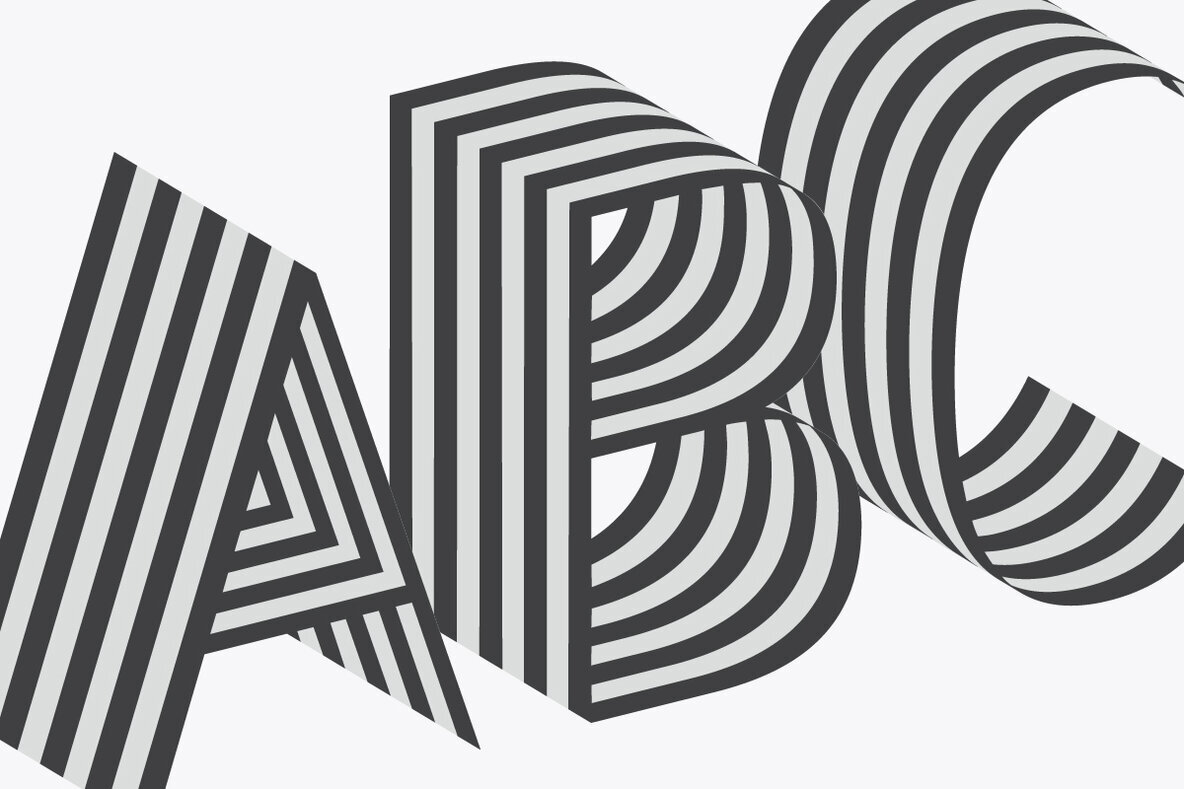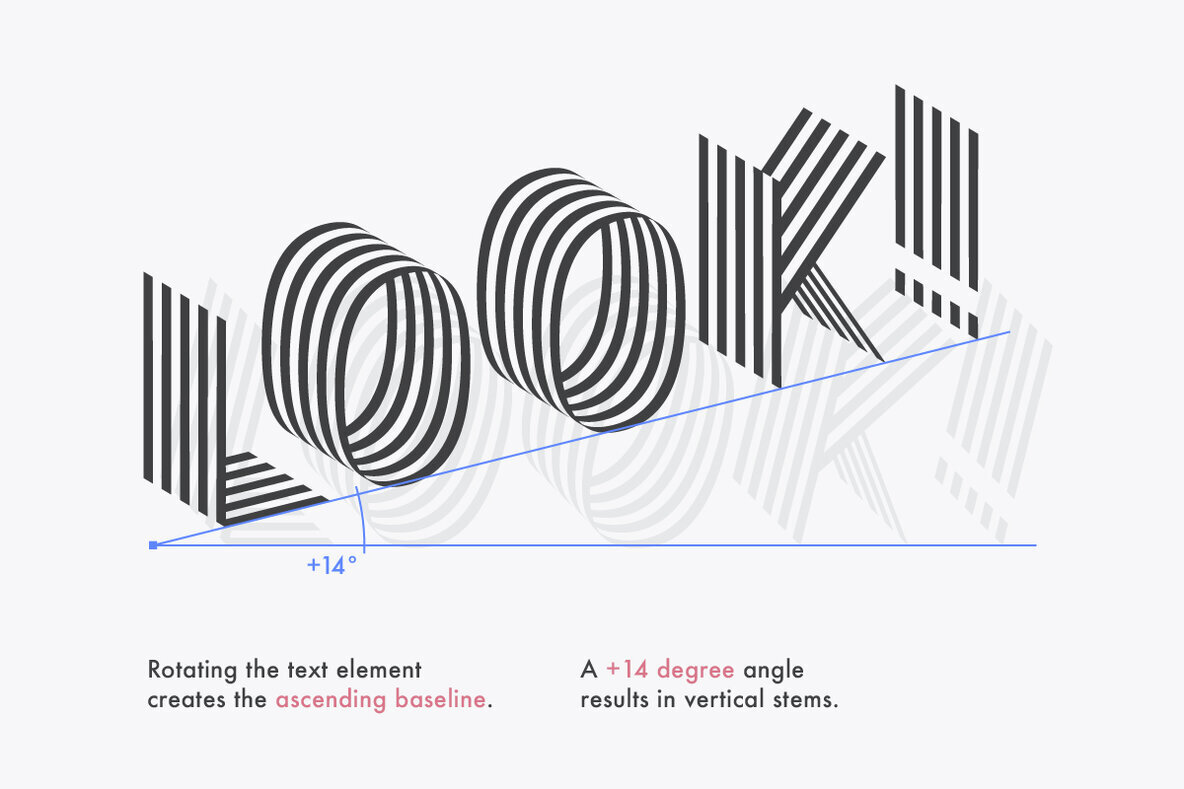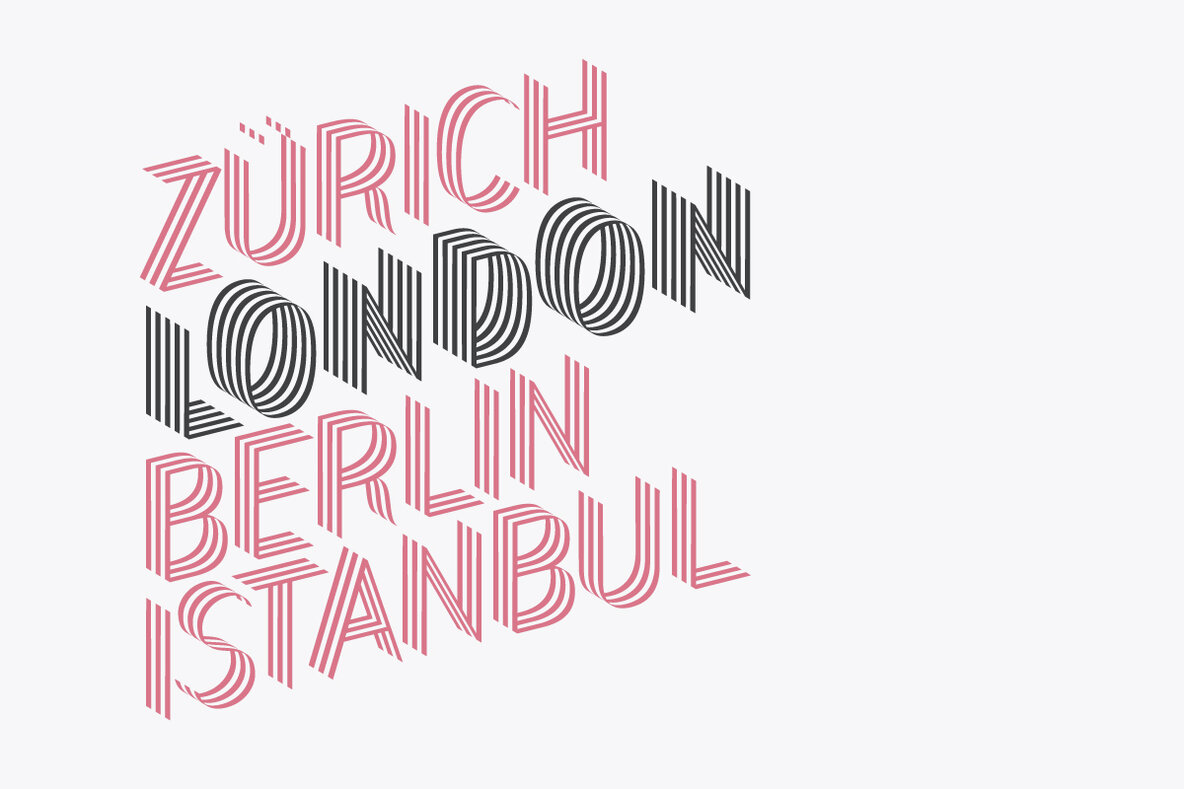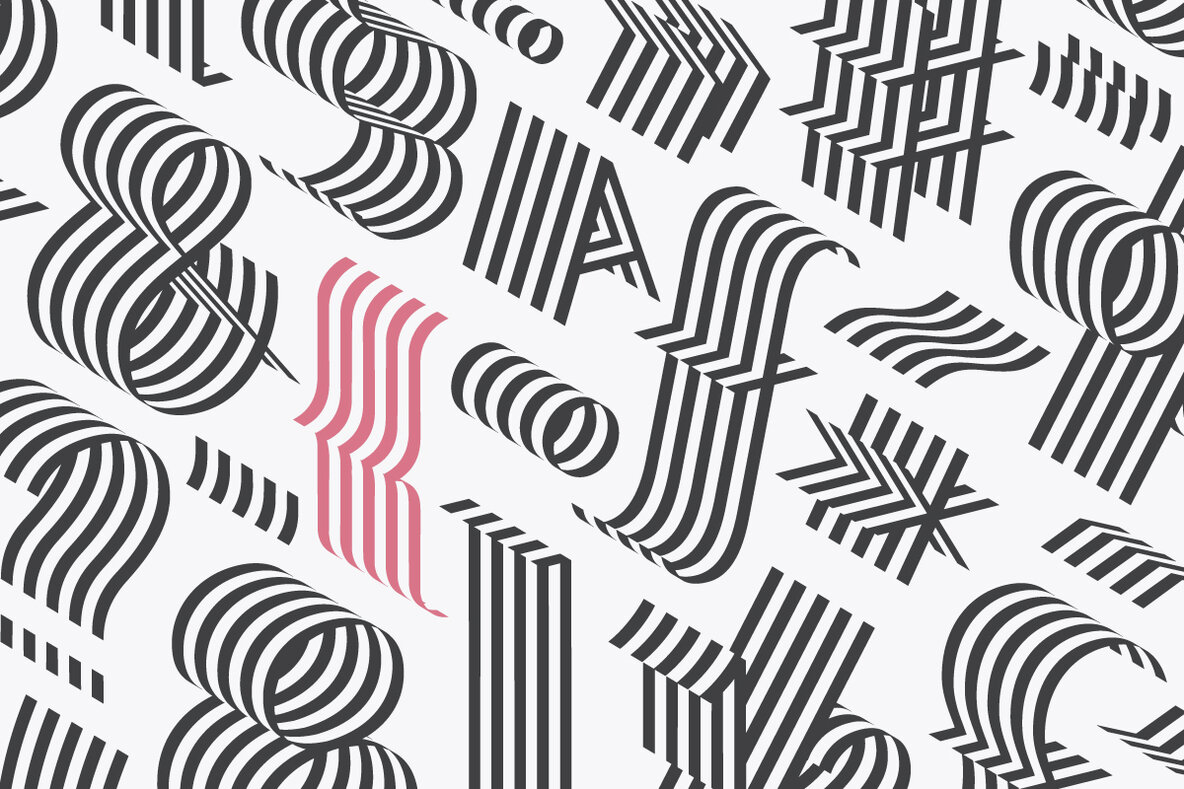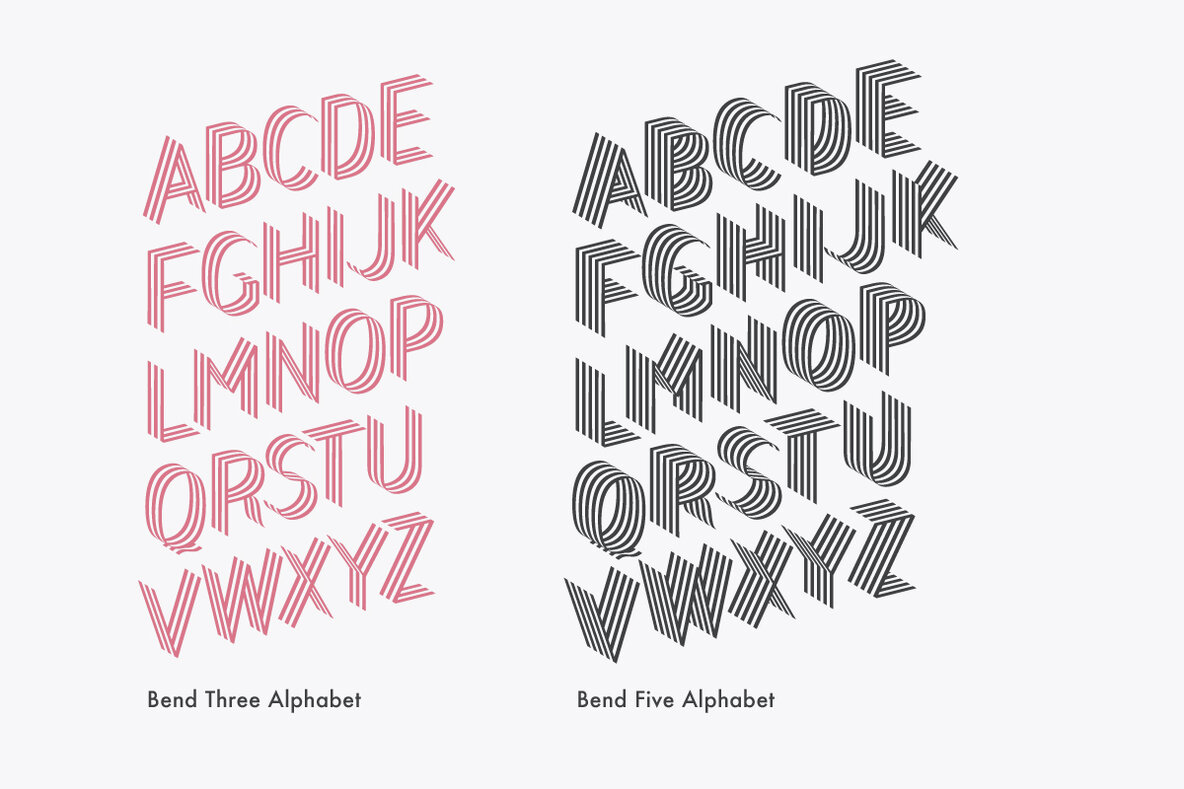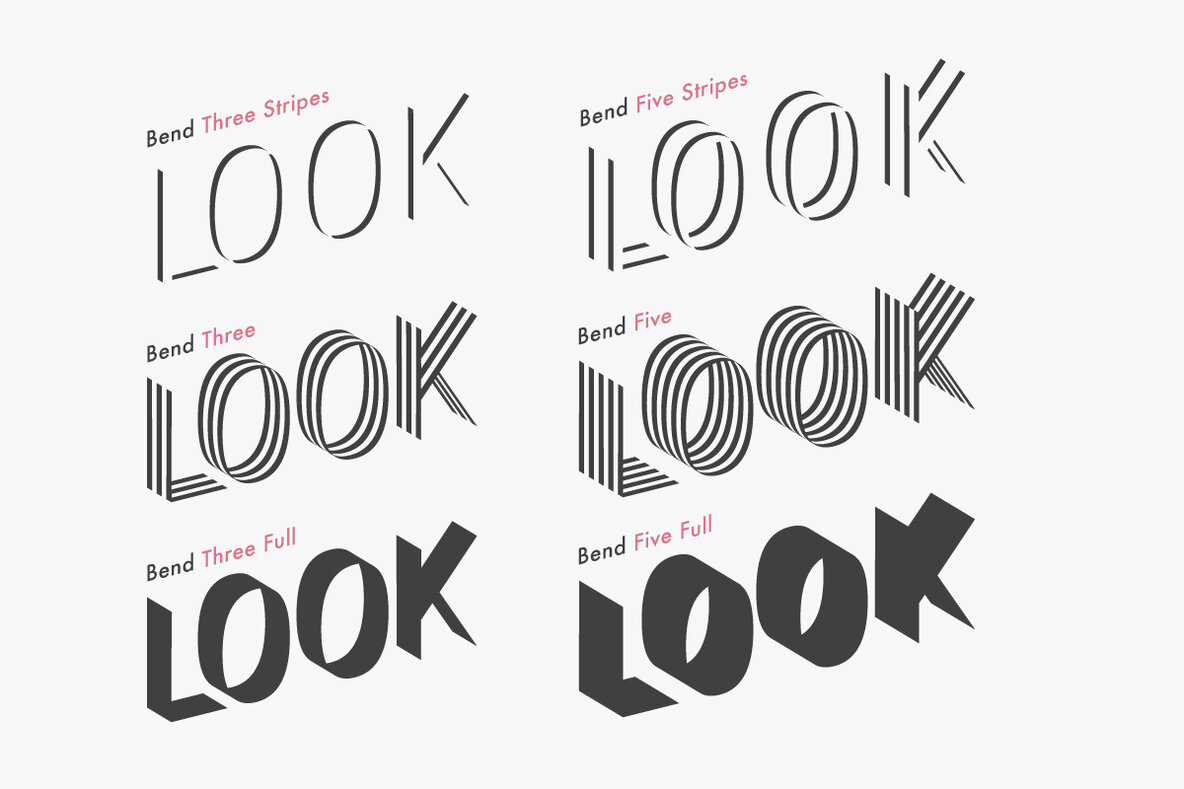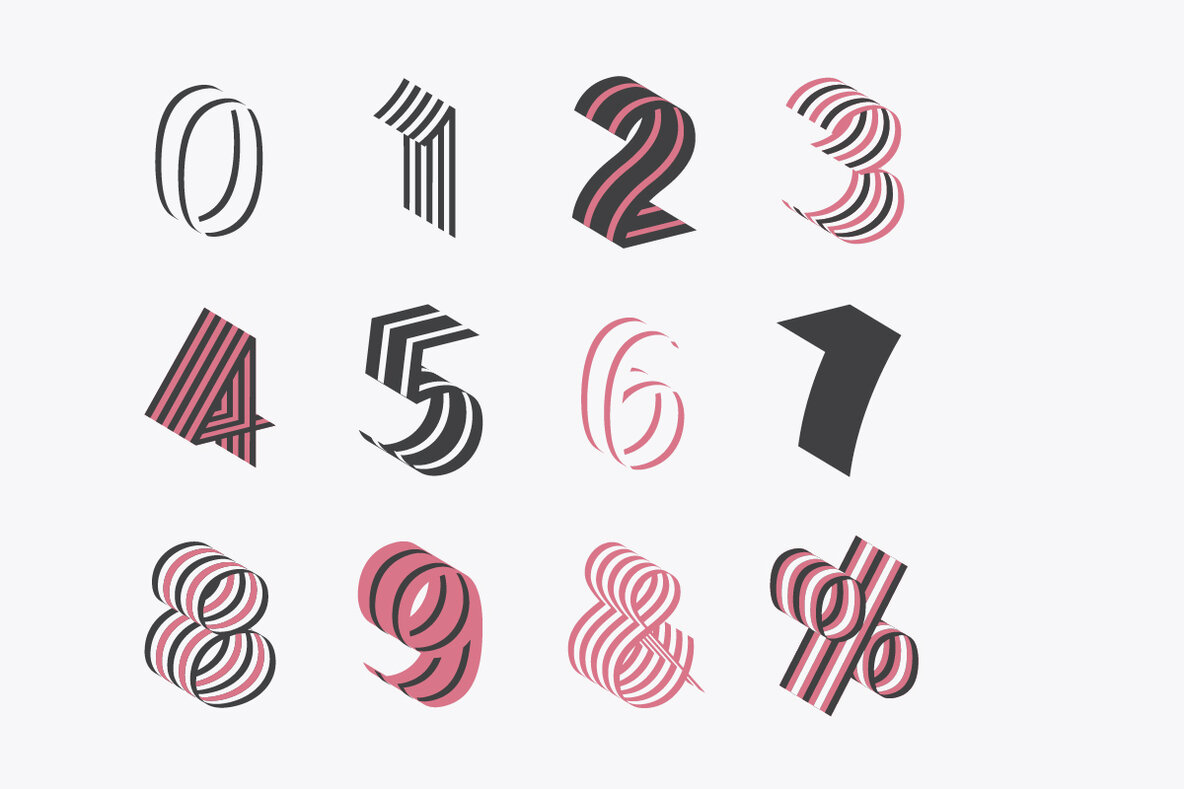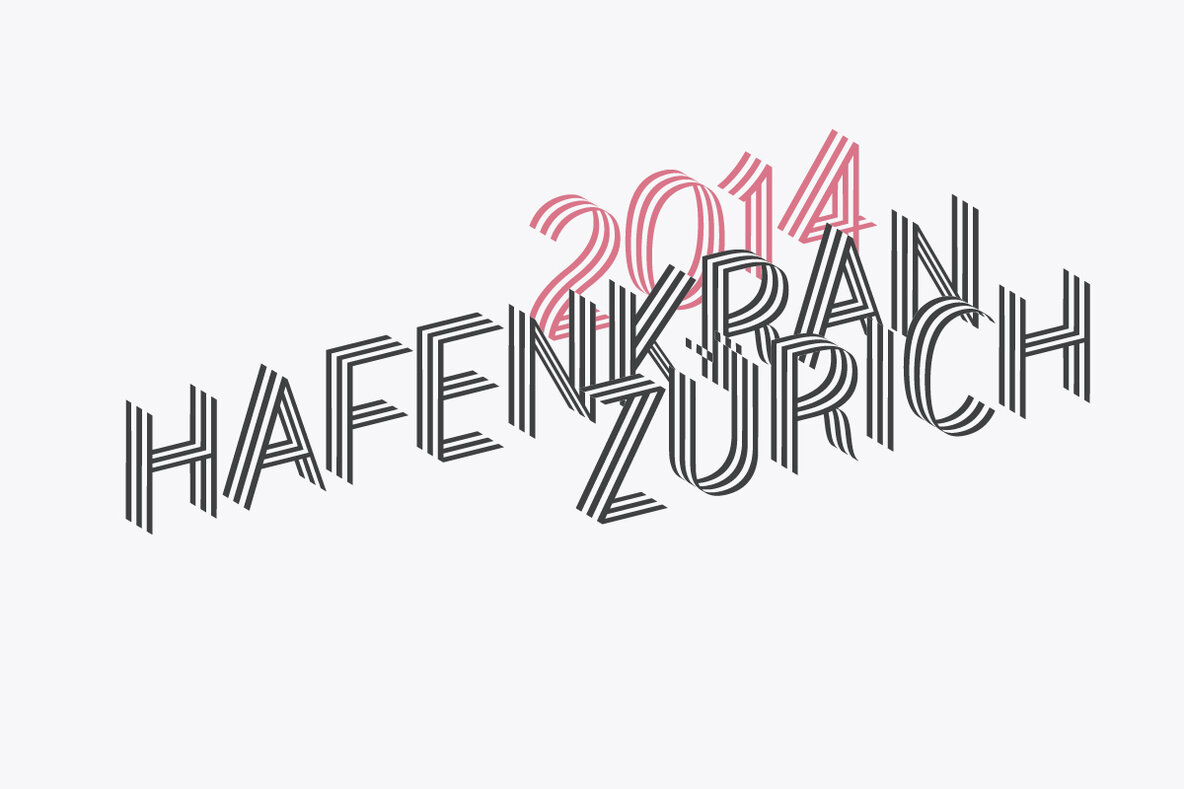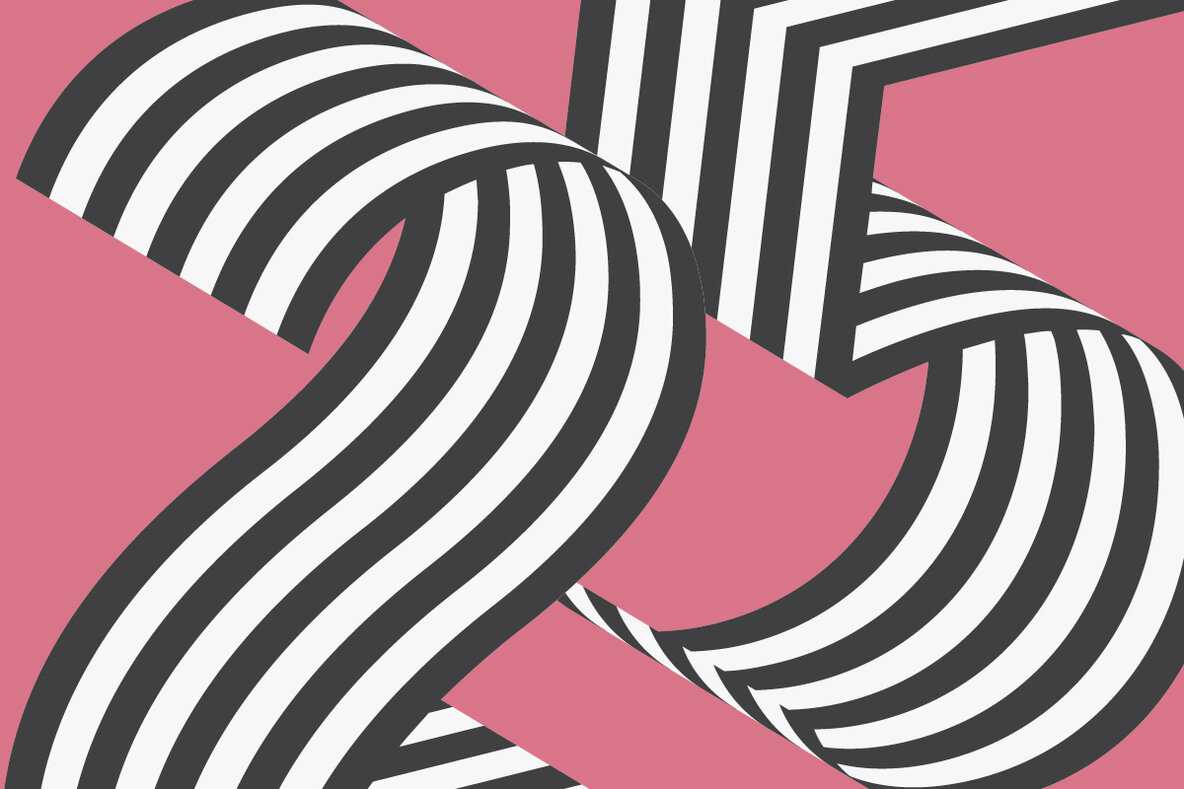
Bend is a contemporary ribbon type family. Unlike most typefaces of that genre Bend is a sans serif. It is the top view angle and the characteristic stripes that create an elegant illusion of volume.
A prominent feature of Bend is the ascending baseline. Simply rotating the text element by 14 degrees reveals the 3D effect and Bend's full potential.
Bend comes in two widths and with three different layers for chromatic results. As a display typeface Bend likes to be set in big sizes and short sentences.